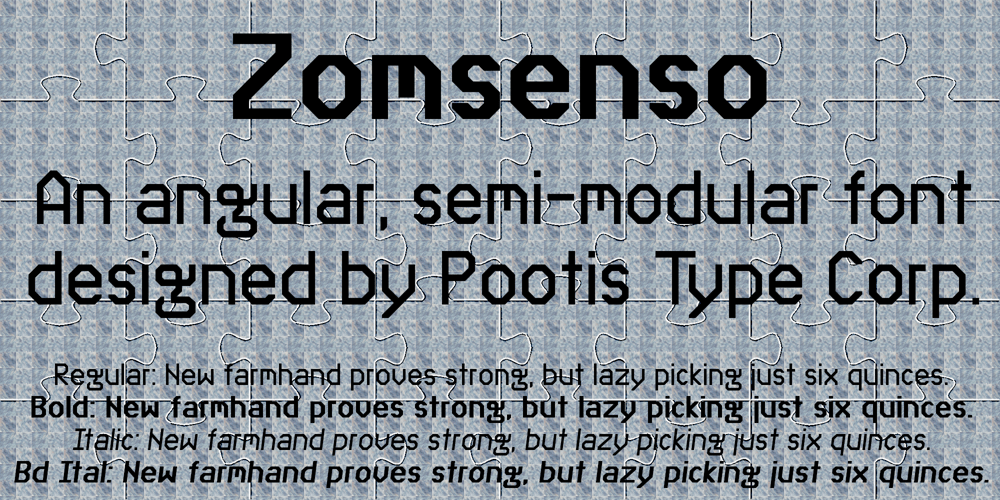
Zomsenso Font Family was designed by Bryndan Meyerholt and published by Pootis Type Corp.. Zomsenso contains 4 styles and family package options. Zomsenso is an angular, semi-modular typeface that supports OpenType alternates. The angular part means that the entire* font uses only angular segments and shapes.The alternate glyph shapes are under Stylistic Set 01.This font includes Seven Segment display (U+E000 to U+E07F) and arbitrary fractions (U+E1nd, n=numerator; d=denominator) that are mapped to the Private Use Area, so users can easily insert them via Unicode input. You can combine these fractions with the superscript and subscript numerals to create more fractions.This font can be used for essays, signs, logos, posters, commercial projects, videos, and many more.*except the circles in the Geometric Shapes block, which are still round